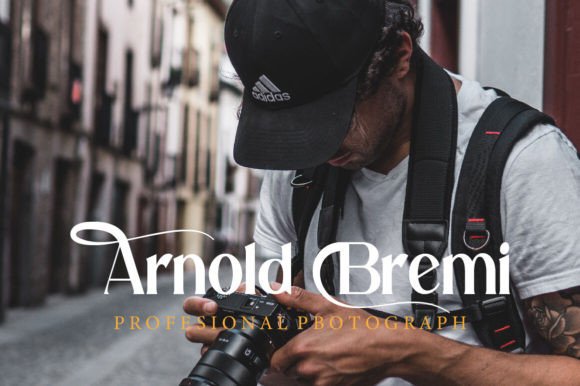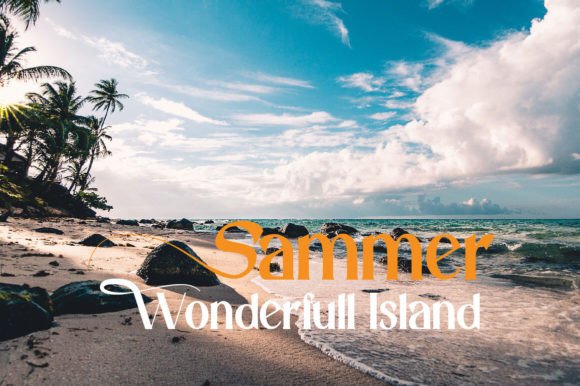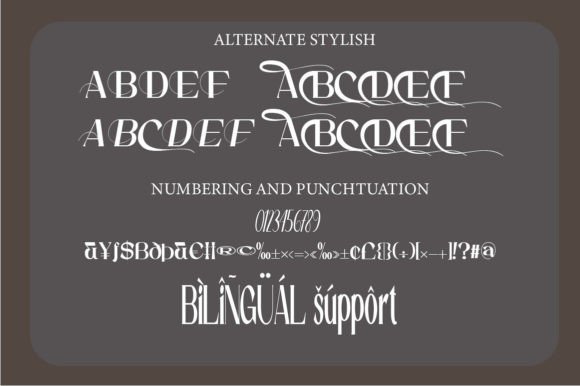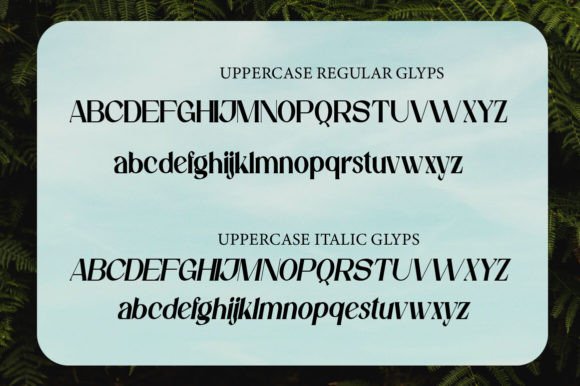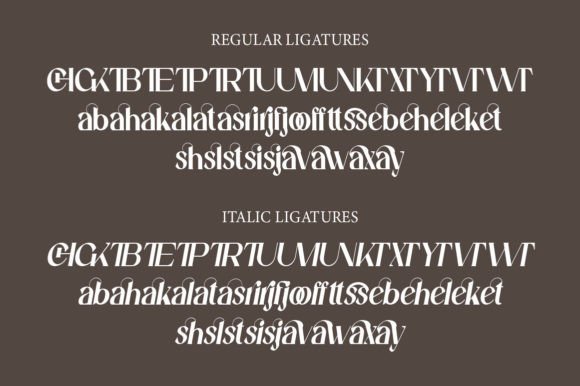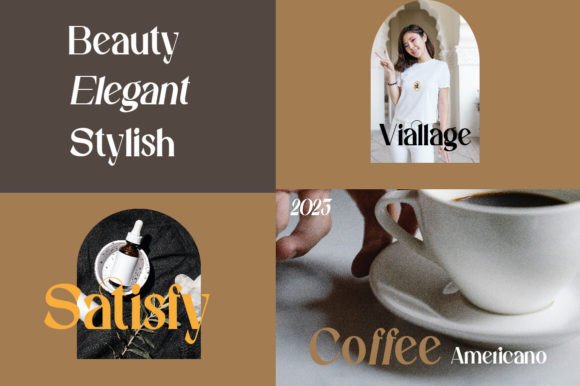
The Perfect Blend of Style and Readability: Introducing Beltimore Font
Have you ever stared at a blank page, trying to find the perfect font to bring your creative vision to life? We’ve all been there. But what if you could have a font that effortlessly combines modern style with effortless readability? That’s where the Beltimore Font comes in – a sleek, stylish serif font that’s perfect for making a statement on any occasion.
This versatile font is designed to help designers like you bring their ideas to life, whether you’re working on a book cover, a logo, or a photography project. With its modern and trendy style, the Beltimore Font is a valuable addition to any designer’s toolkit, offering a wealth of creative possibilities and a professional finish that’s hard to resist.
Baltimore Font Key Features
- Unique Characteristics: The Baltimore Font features a unique, hand-crafted design with subtle imperfections, giving it a distinctive, artisanal feel.
- Font Styles: The font includes multiple font styles, including Regular, Italic, Bold, and Bold Italic, providing designers with flexibility and creative options.
Beltimore Font Review
Overall, I’m impressed with the Beltimore Font, but it has its quirks. Let’s dive into what works well and what doesn’t.
- The font’s unique, modern feel is perfect for trendy websites and brands.
- Its clear, legible typography makes it easy to read, even at smaller font sizes.
- The font’s range of weights and styles gives designers flexibility when creating layouts.
- The font’s versatility is evident in its suitability for both digital and print media.
- The font’s bold weights can appear somewhat condensed, which may not be ideal for large blocks of text.
- The font’s x-height is somewhat inconsistent across different weights, which can affect readability.
- The font’s limited language support may be a concern for designers working with multilingual content.
The Beltimore Font is a solid choice for designers looking for a modern, trendy font. While it has its limitations, the font’s strengths make it a great option for a wide range of projects. With some careful consideration of the font’s quirks, designers can create beautiful, effective designs with the Beltimore Font.
Beltimore Font Practical Application Guide
Some tips for getting the most out of the Beltimore Font include using it for headings and titles, as it is a bold and eye-catching font. You can also use it for creating a vintage or retro aesthetic in your designs. Common use cases include logo design, branding, and packaging design.
Alternatives to Beltimore Font
The Great Vibes Font is a modern, elegant script font suitable for various design projects, including invitations, posters, and logos. It’s a great choice when you need a sophisticated and stylish font without the bold, distressed look of Beltimore Font.
Comparison: Great Vibes Font has a more refined and polished look compared to Beltimore Font’s distressed, vintage feel.
The Carolyna Pro Font is a elegant, high-end script font ideal for luxury branding, invitations, and other high-end design projects. It’s a great alternative to Beltimore Font when you need a sophisticated and elegant font without the distressed look.
Comparison: Carolyna Pro Font has a more refined and sophisticated look compared to Beltimore Font’s bold and distressed style.
The Alex Brush Font is a elegant, handwritten script font suitable for various design projects, including invitations, posters, and logos. It’s a great choice when you need a stylish and elegant font without the bold, distressed look of Beltimore Font.
Is Beltimore Font available in various font styles?
Yes, Beltimore Font is available in various font styles, including Regular, Italic, Bold, and Bold Italic. This allows designers to choose the perfect style to suit their design needs.
What is the recommended font size for optimal readability with Beltimore Font?
The recommended font size for optimal readability with Beltimore Font is between 12-14 points for body text. However, this may vary depending on the specific design requirements and the intended audience.